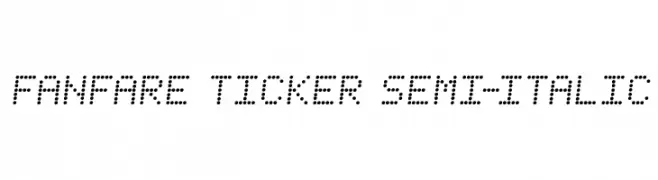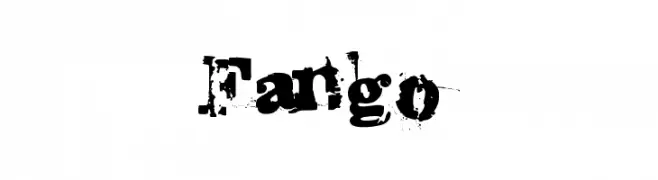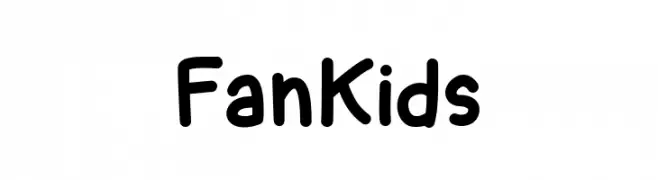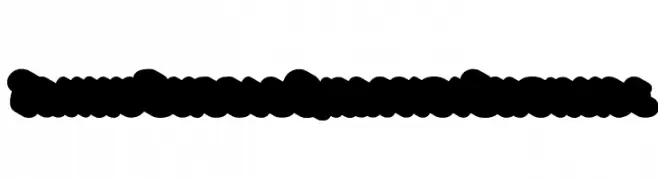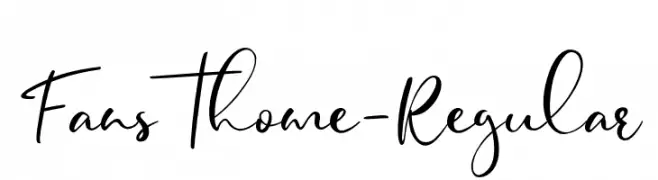
A dot matrix style font with a semi-italicized, modern look.
A bold, distressed font with a grunge aesthetic.
A sophisticated, elegant handwritten font with flowing cursive strokes and graceful curves.
A playful, rounded font with a youthful, hand-drawn appearance.
A bold, playful bubble graffiti-style font with rounded, tightly packed characters.
A bold, bubble graffiti font with a 3D extruded effect.
A playful, bubble-like font with a graffiti-inspired style.
A lively handwritten font with expressive strokes and playful character.
A bold, playful handwritten font with thick strokes and rounded edges.
A playful, bold, and hand-drawn style font with rounded, irregular characters.